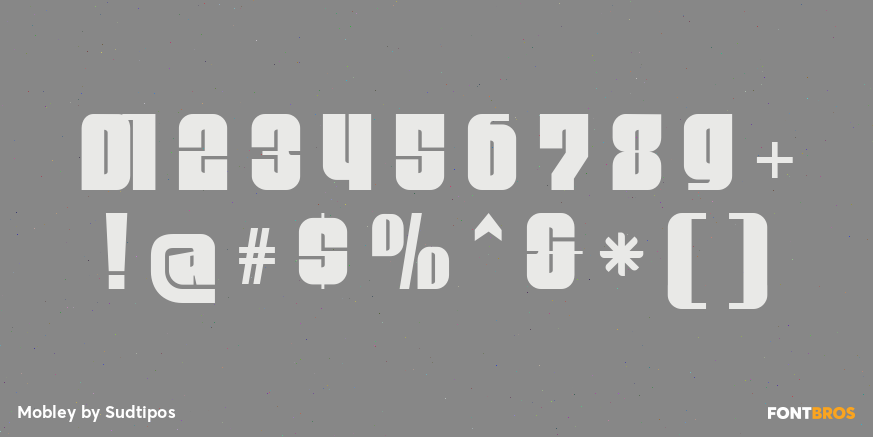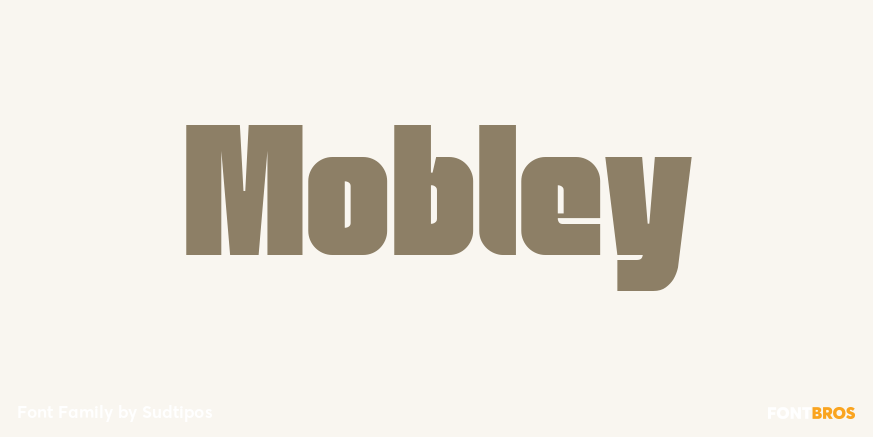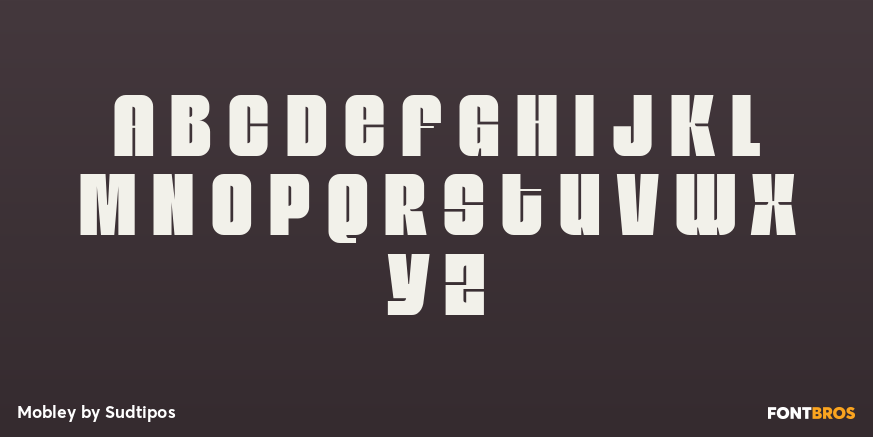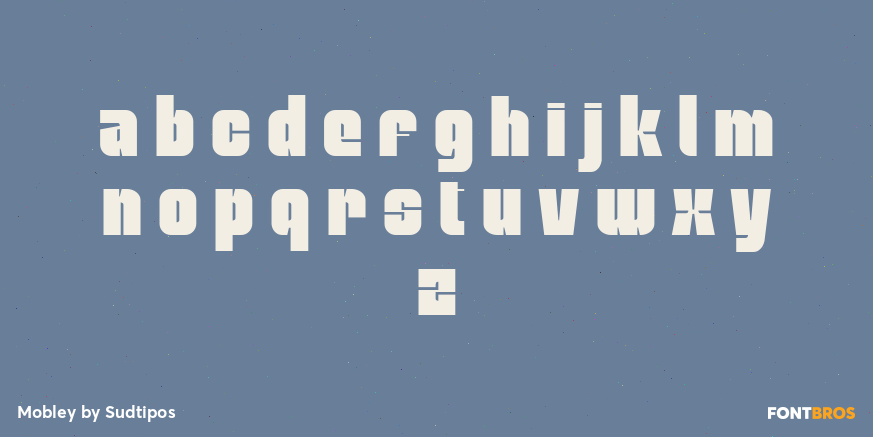
Mobley
Font Family by Sudtipos
Based on ten characters found on the cover of a 1960s Blue Note jazz album.
Mobley Sans, along with its condensed and serif counterparts, constitute a brand new typographic whole molded around the original inspirational source. The family embodies the independent creative spirit of that era - yet manages to remain contemporary with several modern design traits - creating its own unique visual theme through the use of odd counters, generous curves and sharp corners. Perfect for music artwork, packaging and book covers.